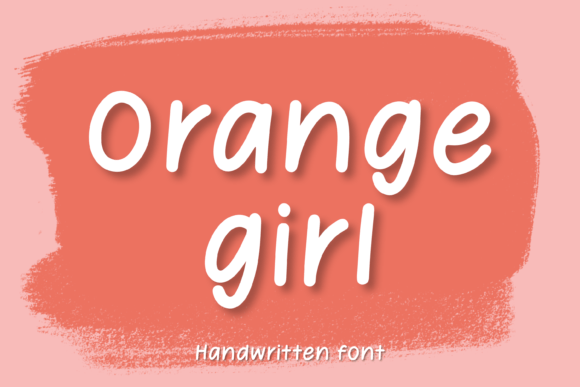
In the realm of online expression and digital artistry, allow me to introduce you to Orange Girl Font, a script font family that exudes charm and simplicity. This creation of Jyllyco is the perfect companion for your creative endeavors, crafted to bring a touch of whimsy and uniqueness to your projects.
Orange Girl Font is not merely a font; it's an invitation to explore the world of handwritten beauty. Its delicate strokes and playful curves evoke a sense of nostalgia, reminiscent of childhood notes and heartfelt letters. With Orange Girl Font, you can infuse your designs with a personal touch, capturing the essence of individuality and authenticity.
Step into a world where imagination thrives and creativity knows no bounds. Orange Girl Font is your versatile companion, ready to elevate your blog posts, logos, branding, and digital creations. Unleash your inner artist and let the words flow with grace and charm.
With Orange Girl Font, you'll discover a font that's not just visually appealing but also incredibly functional. Its versatility shines through in a multitude of projects, from digital planners and bullet journals to invitations, greeting cards, and decorations. Whether you're designing for personal use or professional endeavors, Orange Girl Font will add a touch of magic to your creations.
Embrace the artistry of handwritten fonts and let Orange Girl Font captivate your audience. Its enchanting style will leave a lasting impression, evoking emotions and creating connections that transcend the digital realm.
Don't settle for ordinary fonts; choose Orange Girl Font and embark on a creative journey filled with delight and inspiration. Experience the beauty of handwritten charm and elevate your designs to new heights.